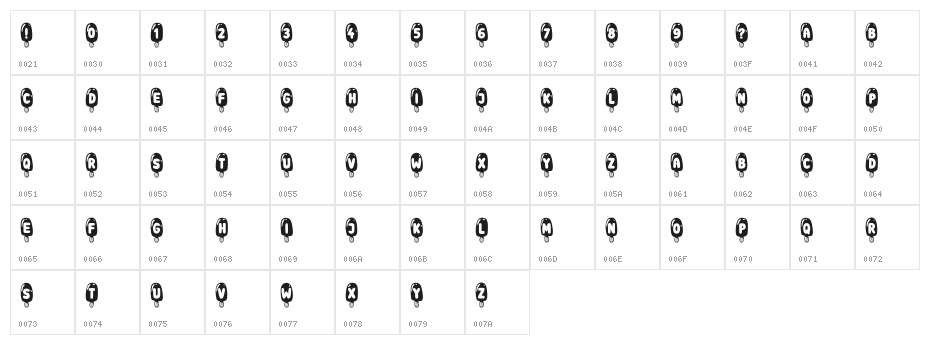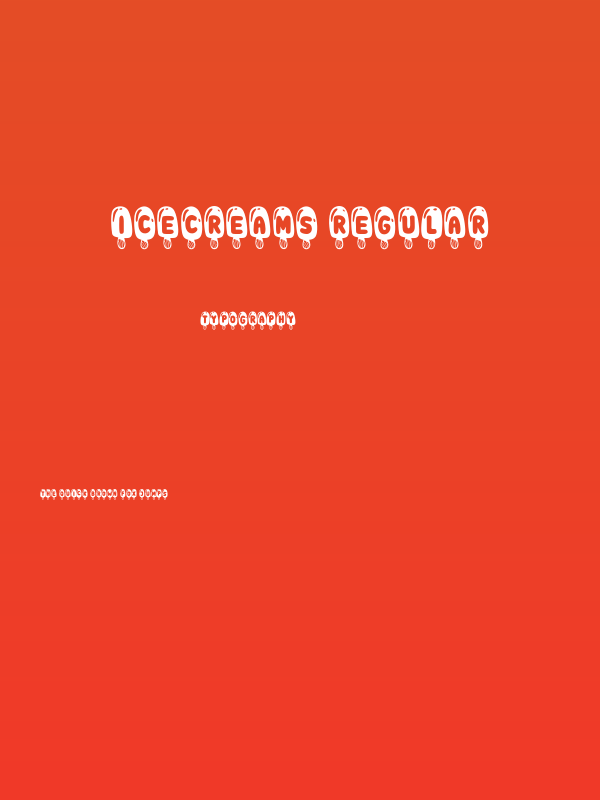
Icecreams Regular Font
Icecreams Regular Description
This playful and whimsical font features characters designed to resemble ice cream bars, complete with sticks. Each letter and number is encased in a rounded, glossy shape that mimics the look of a chocolate-dipped treat. The font has a bold and chunky appearance, making it highly decorative and eye-catching. The unique design adds a fun and lighthearted touch, perfect for projects that require a sense of joy and creativity. The characters are evenly spaced, providing a balanced and consistent look across all text. This font is ideal for children's materials, party invitations, or any project that aims to evoke a sense of fun and playfulness.
| Use Case | Headlines, Logos, Decorative text |
| Proposed Projects | Ideal for children's books, party invitations, playful branding, and summer-themed designs. |